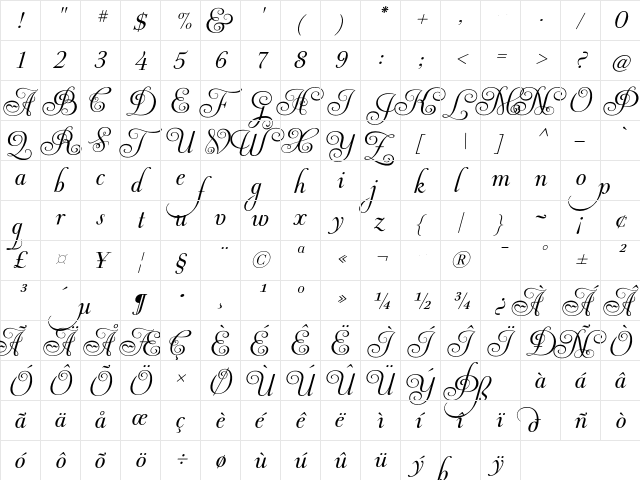
Andrade Pro Script
| Style | Script |
| Foundry | Dino dos Santos _DSType |
| Designer | Dino dos Santos |
Design Context for Andrade Pro Typeface
Andrade Pro flows with the natural rhythm of handwritten lettering, making it ideal for designs that call for warmth and personal expression.
Font Pairing: Combine Andrade Pro with a simple geometric sans for maximum contrast — the tension between flowing curves and clean structure is a classic typographic pairing.
Pro Tip: Pair Andrade Pro with a clean sans-serif for supporting text. The contrast between fluid script and geometric structure creates an elegant typographic hierarchy.